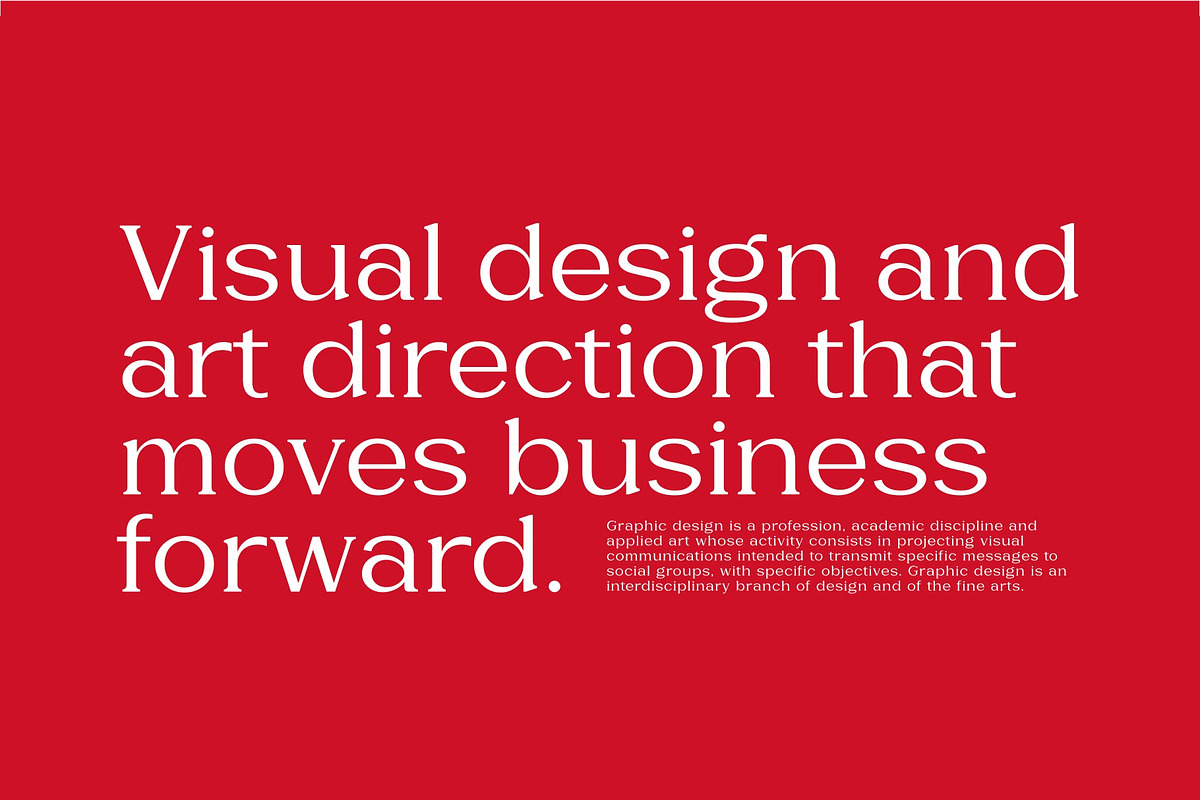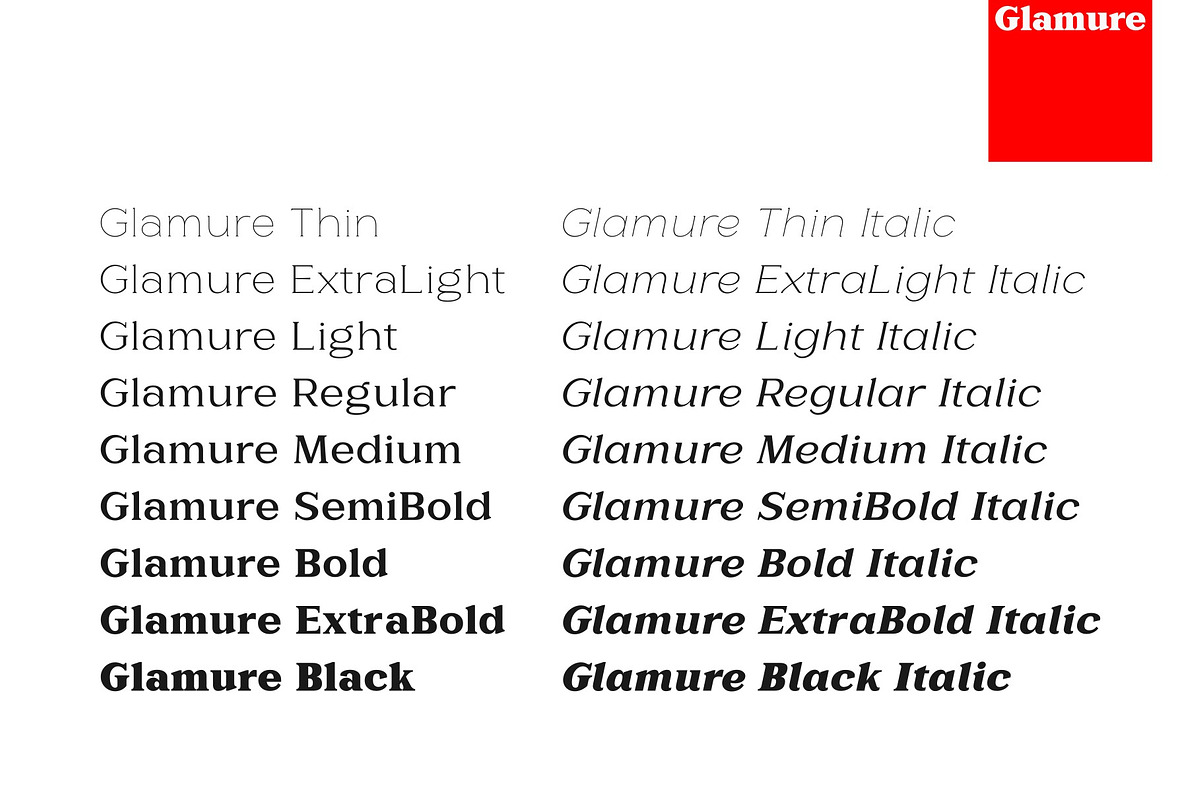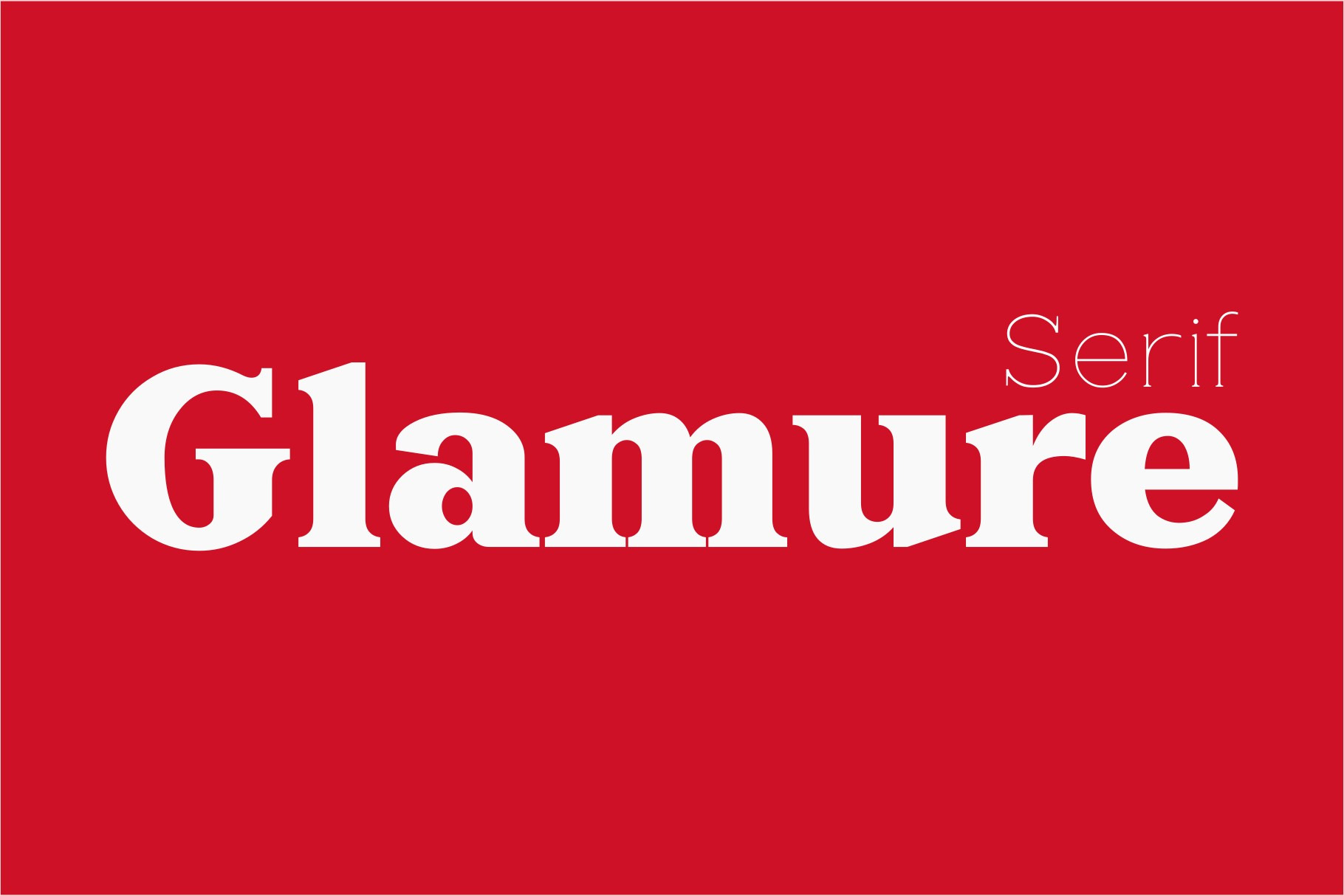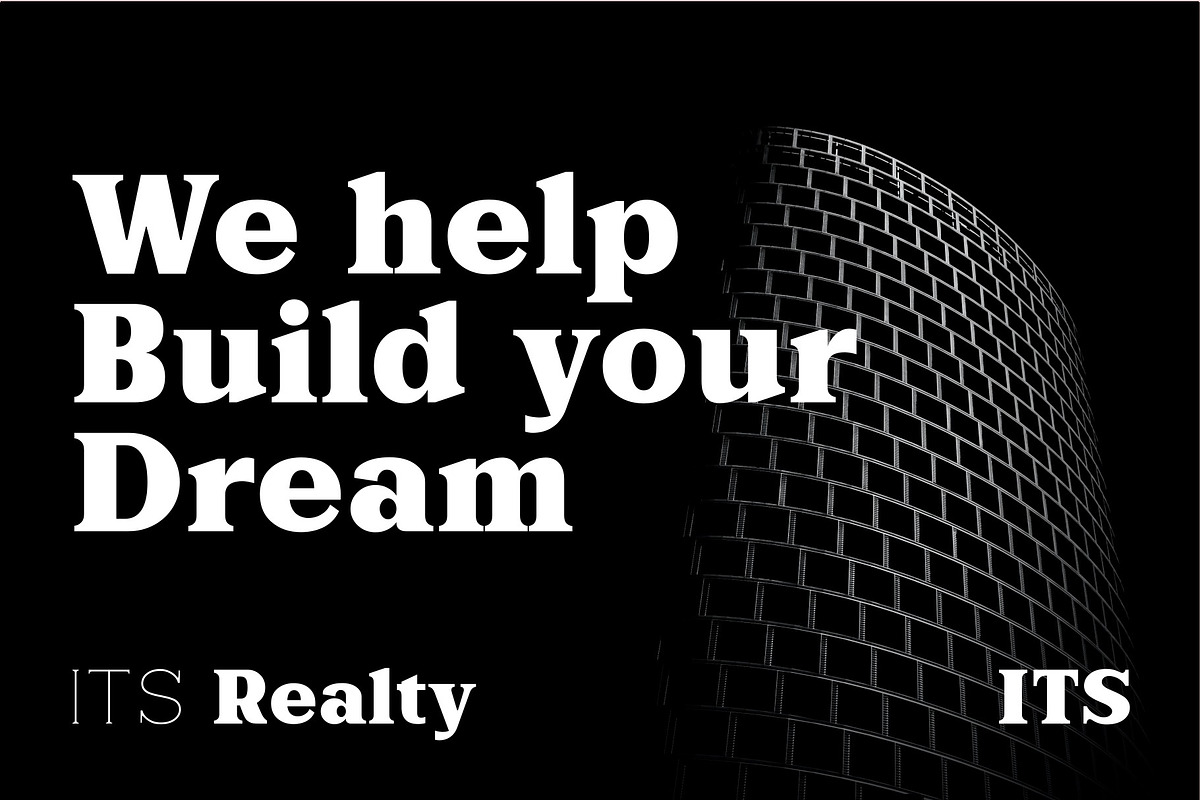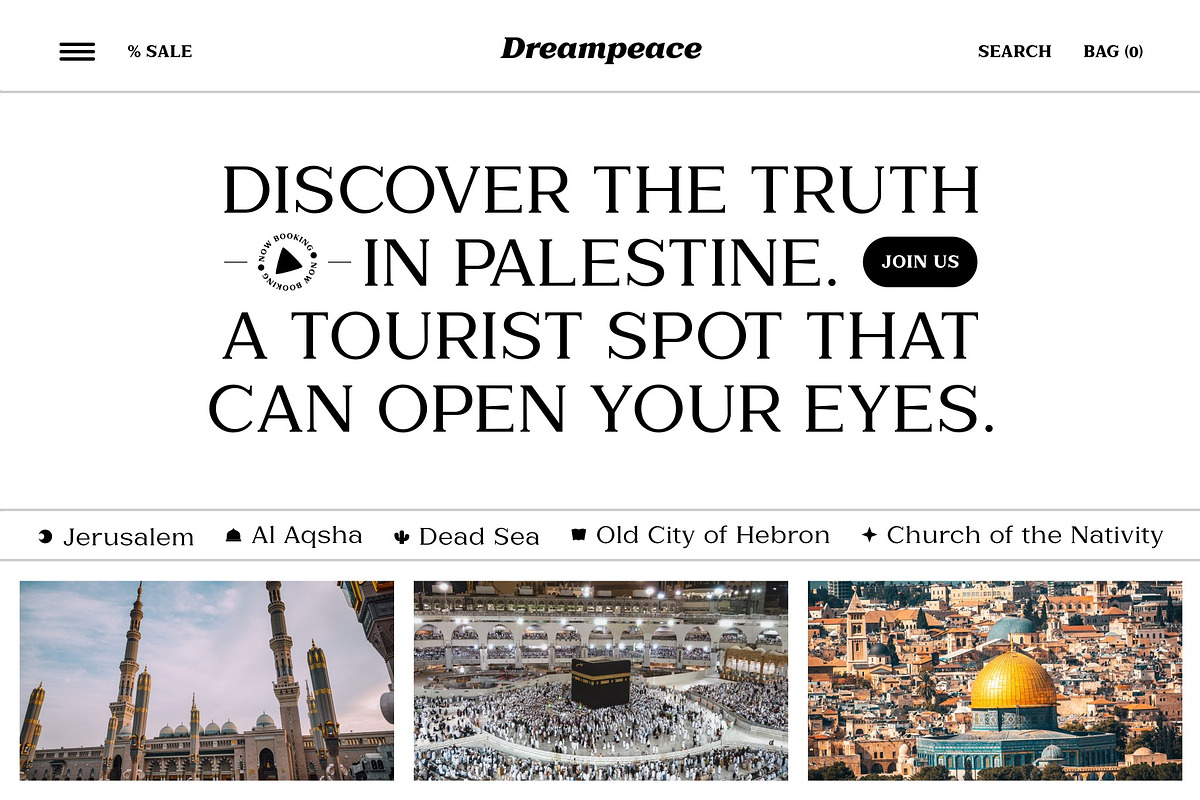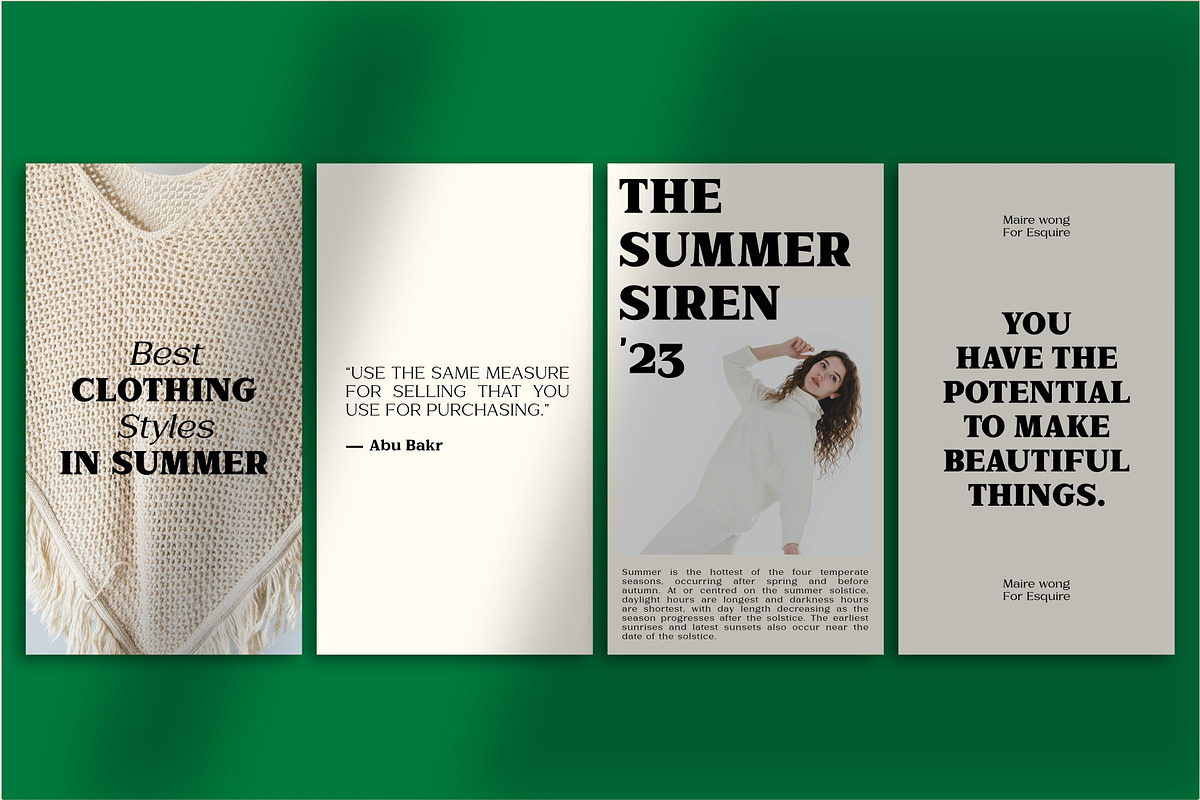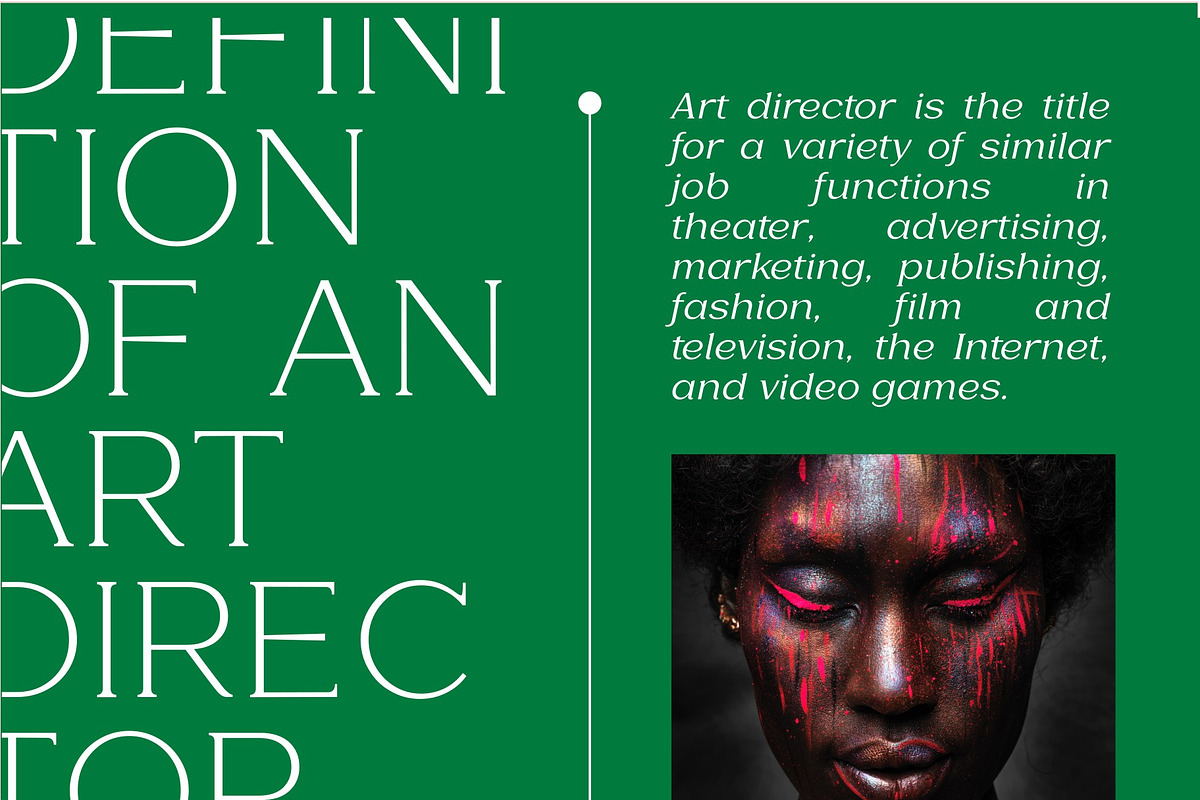
Glamure Serif | Font Family
A meticulously crafted glamour font designed for the luxury market. Featuring refined details, striking contrasts, and graceful strokes, it is the ultimate choice for high-end branding, boutique packaging, cosmetic labels, and sophisticated invitations. Elevate your brand's perceived value with a single typeface.